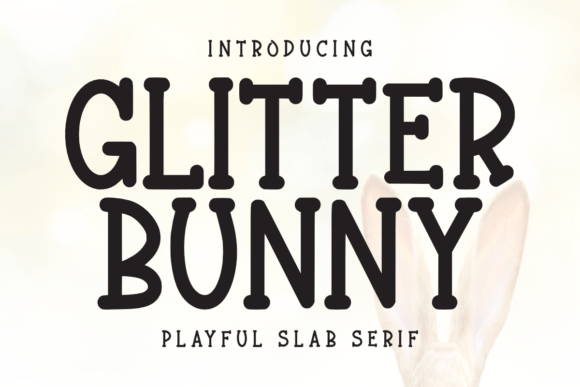
Introducing Glitter Bunny Font: The Ultimate Choice for Playful and Whimsical Designs
Are you a designer or crafter looking for a font that can add a touch of playfulness and whimsy to your projects? Look no further than Glitter Bunny Font! This delightful slab serif font is designed to bring a smile to your face with its soft curves, cheerful tone, and bold, bubbly letters. In this article, we’ll dive into the world of Glitter Bunny Font and explore its features, uses, and benefits.
What is Glitter Bunny Font?
Glitter Bunny Font is a playful slab serif font that is perfect for creating eye-catching and charming designs. Its soft curves and rounded edges give it a friendly and approachable feel, making it ideal for projects that require a touch of warmth and personality. The font’s bold and bubbly letters are sure to grab attention and add a sprinkle of cuteness and joy to any design.
Features of Glitter Bunny Font
So, what makes Glitter Bunny Font so special? Here are some of its key features:
- Playful and whimsical design: Glitter Bunny Font has a unique and playful design that is sure to stand out from the crowd.
- Soft curves and rounded edges: The font’s soft curves and rounded edges give it a friendly and approachable feel.
- Bold and bubbly letters: The font’s bold and bubbly letters are perfect for creating eye-catching and attention-grabbing designs.
- Cheerful tone: Glitter Bunny Font has a cheerful tone that is sure to bring a smile to your face.
Uses of Glitter Bunny Font
So, what can you use Glitter Bunny Font for? The possibilities are endless! Here are some ideas to get you started:
- Easter designs: Glitter Bunny Font is perfect for creating Easter-themed designs, such as Easter egg designs, bunny-themed prints, and spring-inspired artwork.
- Baby-themed prints: The font’s playful and whimsical design makes it ideal for creating baby-themed prints, such as baby shower invitations, nursery decor, and baby clothes.
- Crafting projects: Glitter Bunny Font is perfect for crafting projects, such as scrapbooking, card making, and DIY paper crafts.
- Digital designs: The font can also be used for digital designs, such as social media graphics, blog posts, and website headers.
Benefits of Using Glitter Bunny Font
So, why should you use Glitter Bunny Font for your designs? Here are some benefits:
- Adds a touch of playfulness: Glitter Bunny Font adds a touch of playfulness and whimsy to your designs, making them more engaging and attention-grabbing.
- Easy to read: The font’s bold and bubbly letters make it easy to read, even at small sizes.
- Versatile: Glitter Bunny Font can be used for a wide range of projects, from Easter designs to baby-themed prints.
- Unique and eye-catching: The font’s unique and eye-catching design makes it perfect for designers and crafters who want to stand out from the crowd.
Tips for Using Glitter Bunny Font
Here are some tips for using Glitter Bunny Font:
- Use it with bright colors: Glitter Bunny Font looks best with bright and bold colors, such as pastels, neon colors, and metallic colors.
- Experiment with different sizes: The font looks great at different sizes, from small to large.
- Pair it with other fonts: Glitter Bunny Font can be paired with other fonts to create a unique and eye-catching design.
In conclusion, Glitter Bunny Font is a playful and whimsical font that is perfect for designers and crafters who want to add a touch of playfulness and charm to their projects. Its soft curves, cheerful tone, and bold, bubbly letters make it ideal for Easter designs, baby-themed prints, and a wide range of other projects. With its versatility, ease of use, and unique design, Glitter Bunny Font is a must-have font for any designer or crafter.